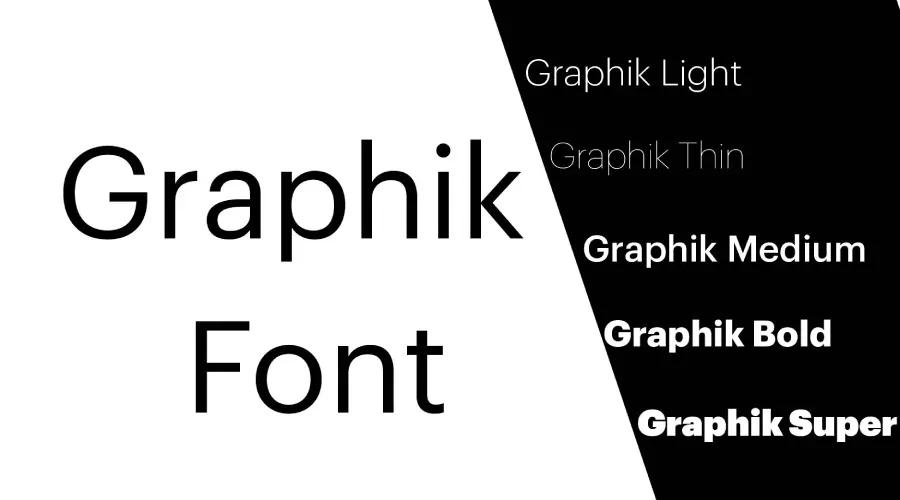
If you are looking for a sans-serif font that can handle any design challenge, you might want to check out Graphik Font. Graphik Font is a geometric sans-serif font with a clean and neutral style that can be easily adapted to different contexts and purposes. But what is the story behind this font and what makes it so special?
Story Behind The Font
Graphik Font is a commercial font designed by Christian Schwartz in 2009. Commercial Type, a type foundry based in London and New York, commissioned the font. Schwartz’s enduring interest in ordinary sans-serif fonts, especially those from the mid-twentieth century, inspired the font.
Schwartz wanted to create a font that worked well for both text and display purposes, as well as in different languages and scripts. He also wanted to offer a wide range of options for designers to choose from. He designed Graphik Font with a rational grid of nine weights and eight widths, resulting in 144 fonts in total.
Graphik Font is widely used for branding, advertising, editorial design, web design, and user interface design. Some examples of famous logos using the font are:
• Airbnb
• Apple Music
• Dropbox
• Netflix
• Spotify
Graphik Font Features
Graphik Font has many features that make it a versatile and elegant typeface. Here are some of them:
• It has a geometric structure that gives it a modern and sleek look.
• It has low contrast and open apertures that make it legible and clear at small sizes.
• It has straight lines and rounded corners that give it a friendly and approachable feel.
• It has subtle details and variations that add personality and warmth to the font.
• It has a high x-height and tight spacing that make it suitable for headlines, logos, and signage.
• It has many alternates and ligatures that allow for customization and fine-tuning of the font.
• It supports many languages and scripts, including Latin, Cyrillic, Greek, Arabic, Hebrew, Devanagari, Thai, Vietnamese, and more.
Christian Schwartz designed Graphik Font in 2009 as a commercial font. This geometric sans-serif font has a clean and neutral style that adapts easily to different contexts and purposes. It has a wide range of options for designers to choose from, as well as many features that make it a versatile and elegant typeface.